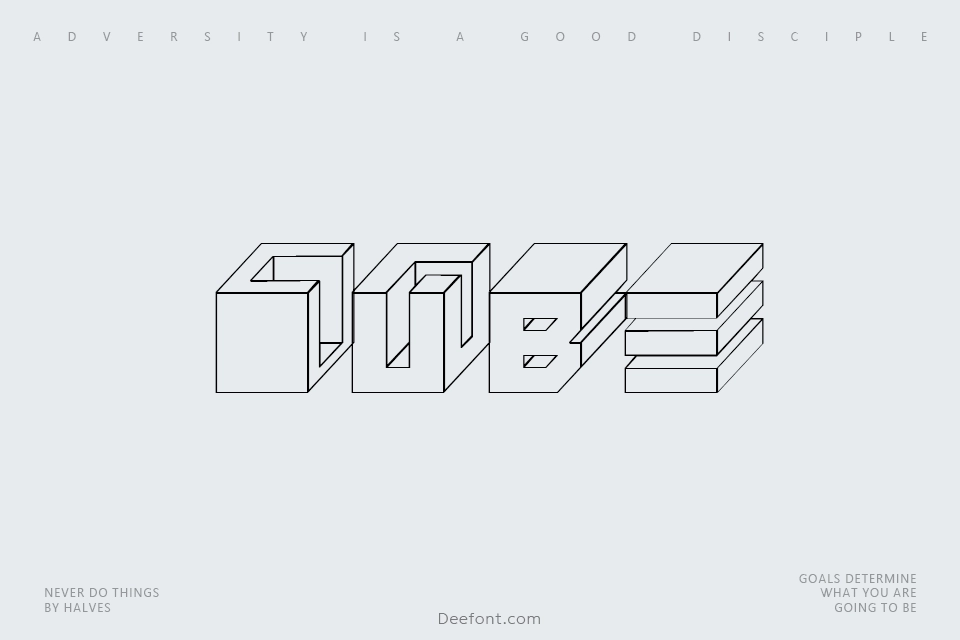
Cube Font
Cube is a bold, geometric techno font designed with a striking 3D aesthetic that evokes a futuristic and digital atmosphere. Perfect for gaming titles, movie and book names, futuristic flyers, and digital device introductions, this typeface features chunky, blocky characters composed of grid-like squares that create a pixelated, embossed appearance reminiscent of early video games and 80s electronics. With its straightforward yet visually commanding design, Cube delivers a strong, modern feel ideal for display purposes and stands out as an excellent choice for retro-inspired, sci-fi themed projects that demand visual impact and geometric precision.